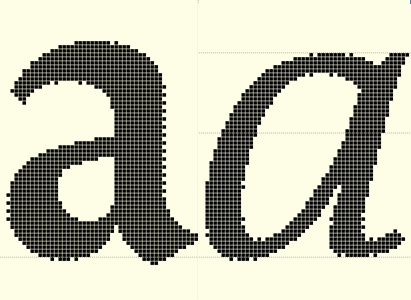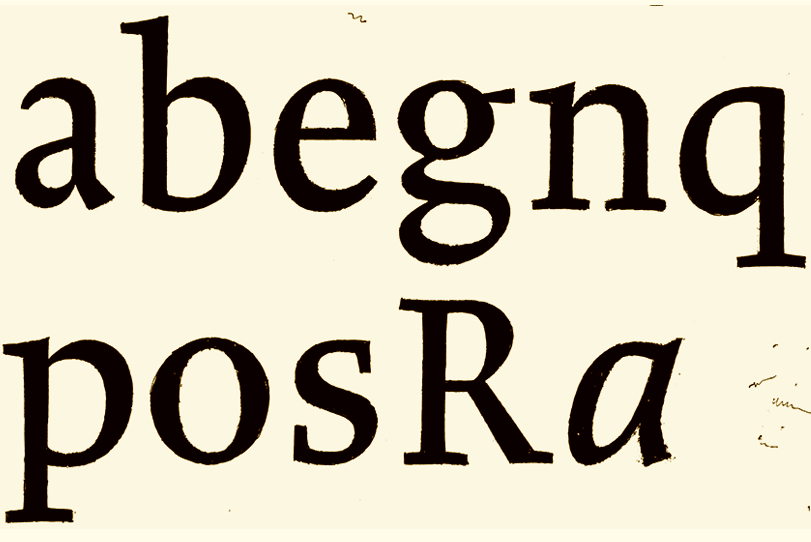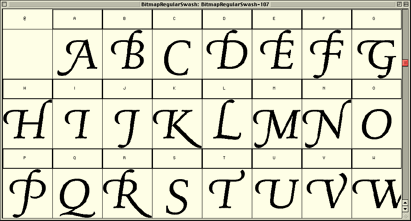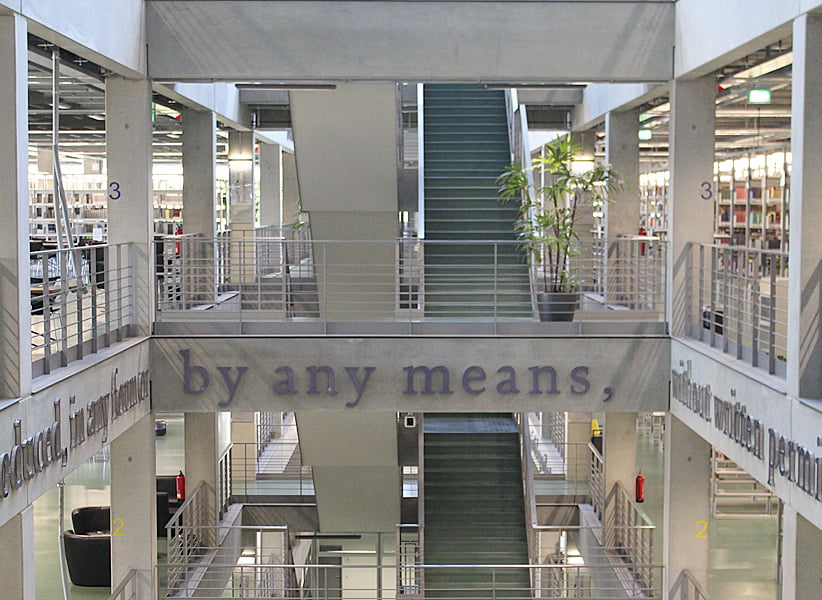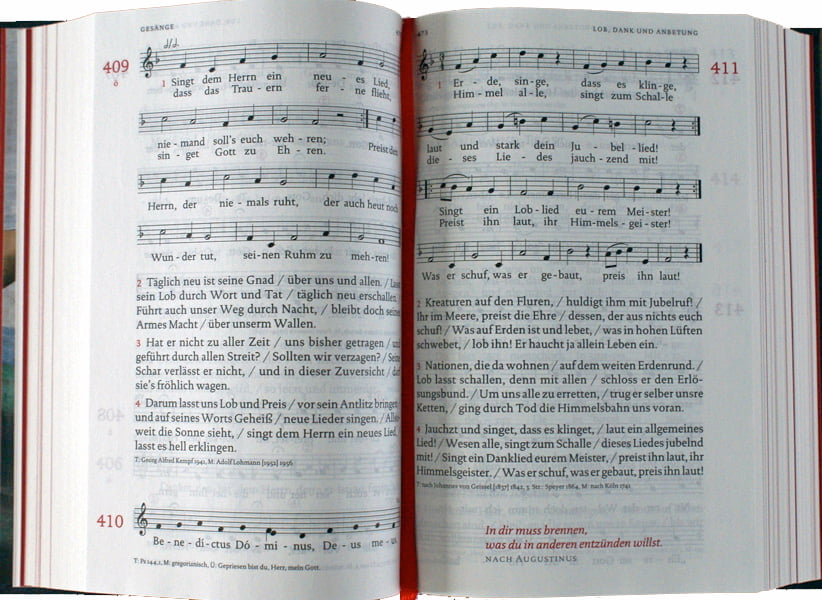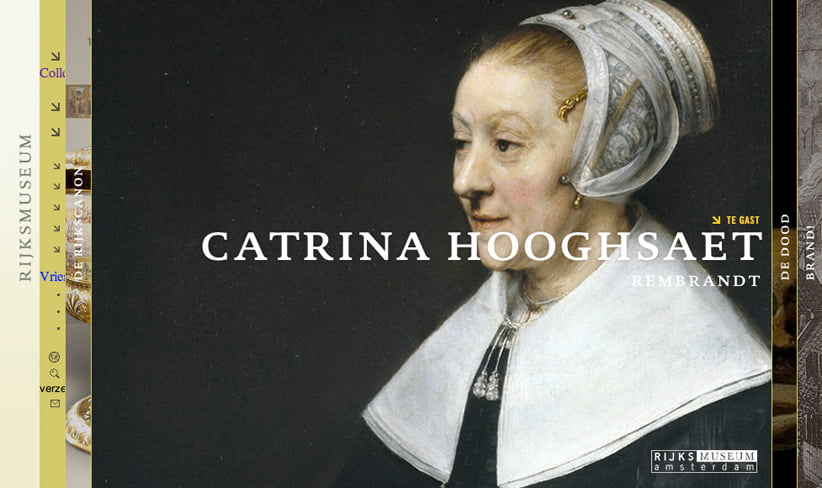
Gotteslob: DTL Documenta         More than 3.6 million copies of Gotteslob were printed in dtl Documenta in 2014
Frank E. Blokland made the first drawings for dtl Documenta in 1986. The idea was to develop a typeface that on the one hand would present a recognizable, contemporary, and powerful image, and on the other hand would work well in small text sizes, irrespective the applied resolution. In the second half of the 1980s the resolution of for instance laser printers was only 300 dpi and in combination with the unhinted PostScript Type3 format this put high demands on digital typefaces.
The very first sketches for dtl Documenta from around 1985
The first range of letters were drawn by Blokland with a marker on an x-height of roughly 3.5 centimeters. Subsequently he experimented with the design size, by scanning the drawings and enlarging these via a matrixprinter to an x-height of roughly 15 centimeters. These enlargements were touched up with a Rotring pen and white gouache and these formed the basis for working drawings in outline, which Blokland later digitized in the ikarus format. Prior to the ikarus version Blokland developed –pixel by pixel– a range of complete fonts as high-resolution bitmaps on the 9-inch screen of a Macintosh Plus. This way roman, italic, bold and bold italic versions were created, besides swash variants.
Bitmap version of DTL Documenta         Originally bitmap fonts for print purposes were designed pixel for pixel on the screen
The bitmap versions were actually used around 1990 for the typesetting of books. Blokland himself used it for a book that accompanied an exhibition at the museum De Lakenhal in the city of Leiden. Also it was used for the publication Letters] & techniek, with a foreword by Huib van Krimpen. This book was awarded as one of the fifty ‘best designed books’ of the Netherlands of 1990. The text on the back of Blokland’s television course Calligraphy, the Art of Writing was typeset too in the bitmap version of dtl Documenta in 1990.
DTL Documenta Swash in bitmap format         Also a swash version in bitmap format was made
The development of the first range of weights/styles of dtl Documenta took seven years. In 1993 the typeface became available in the PostScript Type1 and TrueType formats. Around 1997 a small range of sans-serf versions were added on request of the municipal museum in The Hague, especially for accompanying texts on the walls of the rooms of museum. Almost immediately after releasing dtl Documenta its quality was recognized. In the second edition of his international bestseller The Elements of Typographic Style, Robert Bringhurst calls dtl Documenta a ‘sturdy open text face’ with an ‘equally unpretentious and well-made sanserif companion.
Berlin Volkswagen Universitaet Bibliothek: DTL Documenta         Large metal versions of dtl Documenta were applied in the ‘Volkswagen Bibliothek’ in Berlin
In 2002 Charles Hedrick, director of the New Brunswick Computing Services of the university of New Jersey described dtl Documenta as ‘[..] It is in the Dutch tradition of type design, which means that it has letter shapes based on Renaissance designs, but with an increased x height. It appears to be an attempt to produce a font with classical roots that works well with digital technology. […] However the “finish” is rather different than typical revivals of Renaissance fonts: It has lower contrast and more robust serifs. These features make for a very even texture.[…].’ Although no Renaissance nor any other model formed the basis of dtl Documenta, this description confirms the pursued combination of elegance and robustness.
DTL Documenta in the Rijksmuseum         dtl Documenta was the corporate typeface of the Rijksmuseum in Amsterdam for ten years
The versatility of dtl Documenta is underpinned by its applications. It was the corporate-identity typeface of the Amsterdam Rijksmuseum for more than a decade and it is part of the house style of the city of Amsterdam still. Also it has been the corporate typeface for the Diamond Trading Company. It was and is used for the lettering on many book jackets, as body text in magazines like the New Statesman and it was used for typesetting the Helsingin Sanomat, the largest newspaper of Finland, for a long time.
Currently Blokland is working on additional weights and styles. The medium and bold italics, including small caps and old-style figures, have been added after 22 years now. Next the sans-serif version will be expanded.